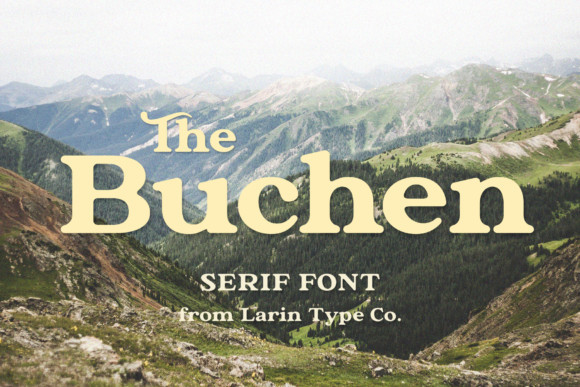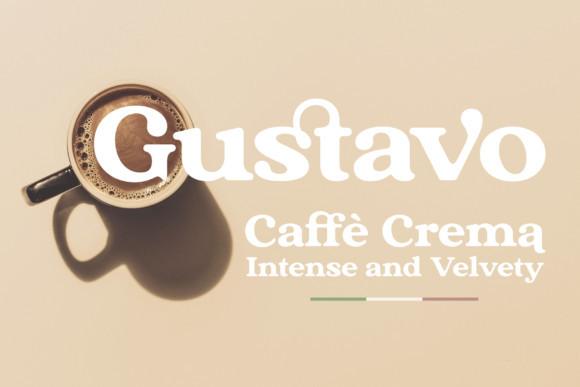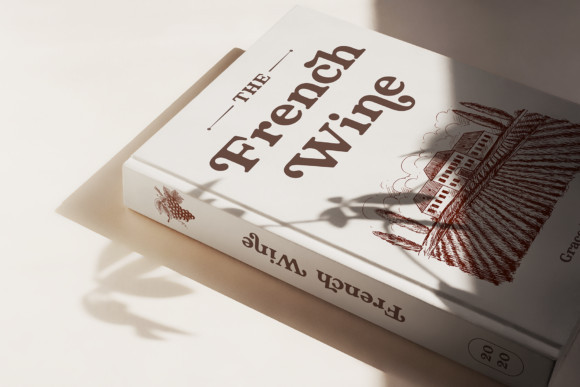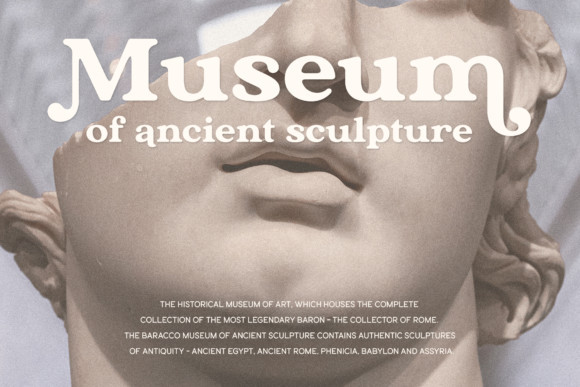
The Buchen Font
The Buchen is an excellent combination of smooth shapes and medium weights. It will fit perfectly into any project, both in more modern or vintage contexts. It can also be classic and more expressive and playful thanks to the alternatives and ligatures that are harmoniously combined!